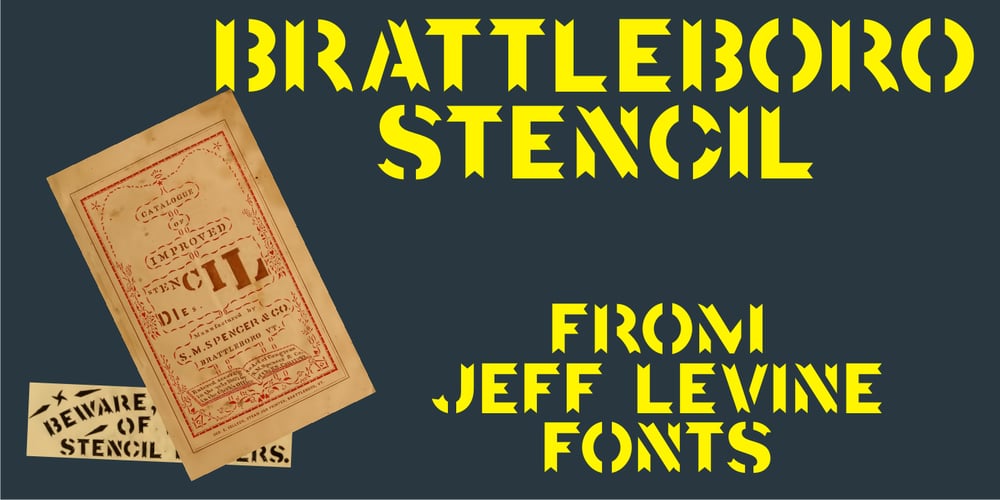
Brattleboro Stencil JNL
Brattleboro Stencil JNL font
Brattleboro Stencil JNL Font Family was designed by Jeff Levine and published by Jeff Levine. Brattleboro Stencil JNL contains 1 styles and family package options. The inspiration for Brattleboro Stencil JNL was found within a reproduction of a sales catalog for stencil punch dies manufactured by S.M. Spencer & Co. (originally of Brattleboro, VT), circa 1868. Basically a sans serif letter, the font’s unusual feature is its “split tail” design where the letters take on a bit of a “Western” look in appearance.